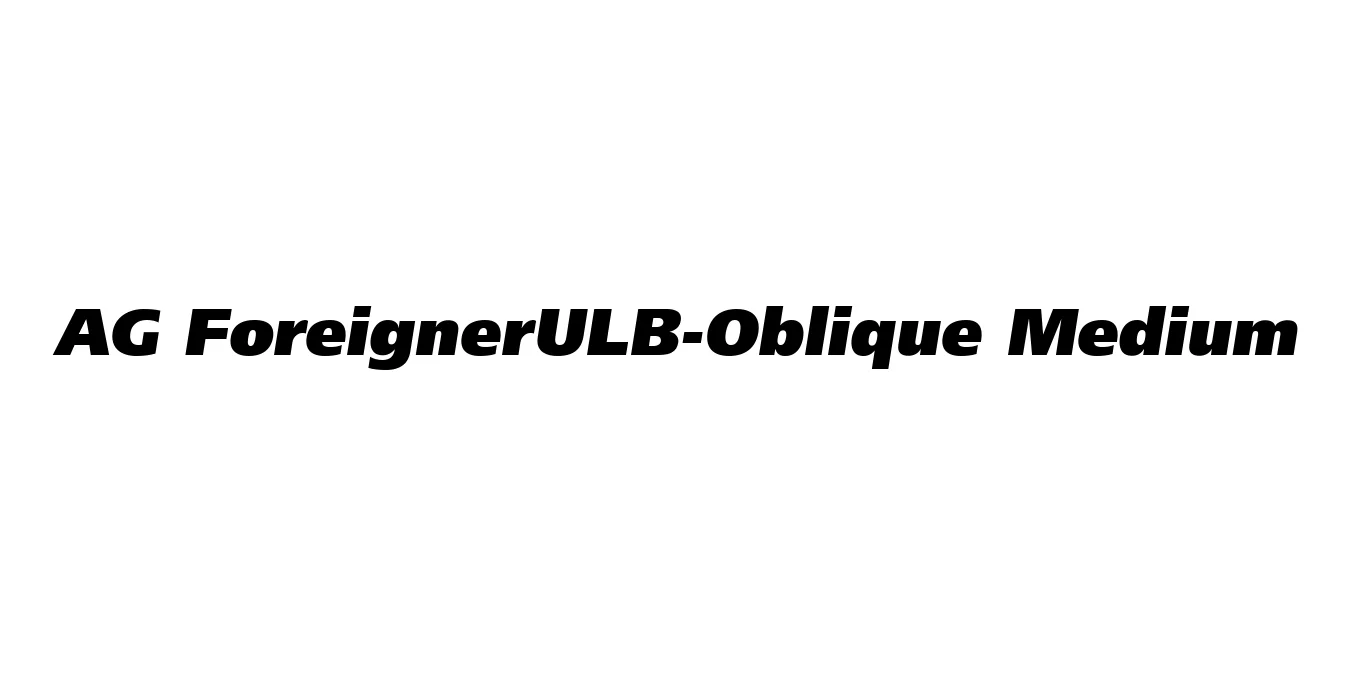
AG ForeignerULB-Oblique Medium
Designed by Berthold Types
AG ForeignerULB-Oblique Medium is a refined neo-grotesque sans-serif typeface that belongs to the expansive AG Foreigner family. This font is celebrated for its industrial precision and neutral aesthetic, offering a clean, modern look that adheres to the principles of Swiss design. The medium weight combined with its oblique posture creates a sense of forward momentum and professional urgency without sacrificing legibility.
Designed to be highly versatile, this typeface is an excellent choice for high-impact visual communication. Its structured anatomy and consistent stroke widths ensure that it remains readable across various platforms, from traditional print media to modern digital interfaces. The AG Foreigner series remains a popular alternative to classic grotesques, providing a distinct personality for designers seeking a balance between functionalism and contemporary style.
AG ForeignerULB-Oblique Medium Best Uses
Perfect for creating authoritative and clean brand logos and assets.
High legibility makes it suitable for complex documentation and guides.
Adds a sleek, professional touch to website hero sections and navigation.
Works exceptionally well for bold headlines and clear body copy in magazines.